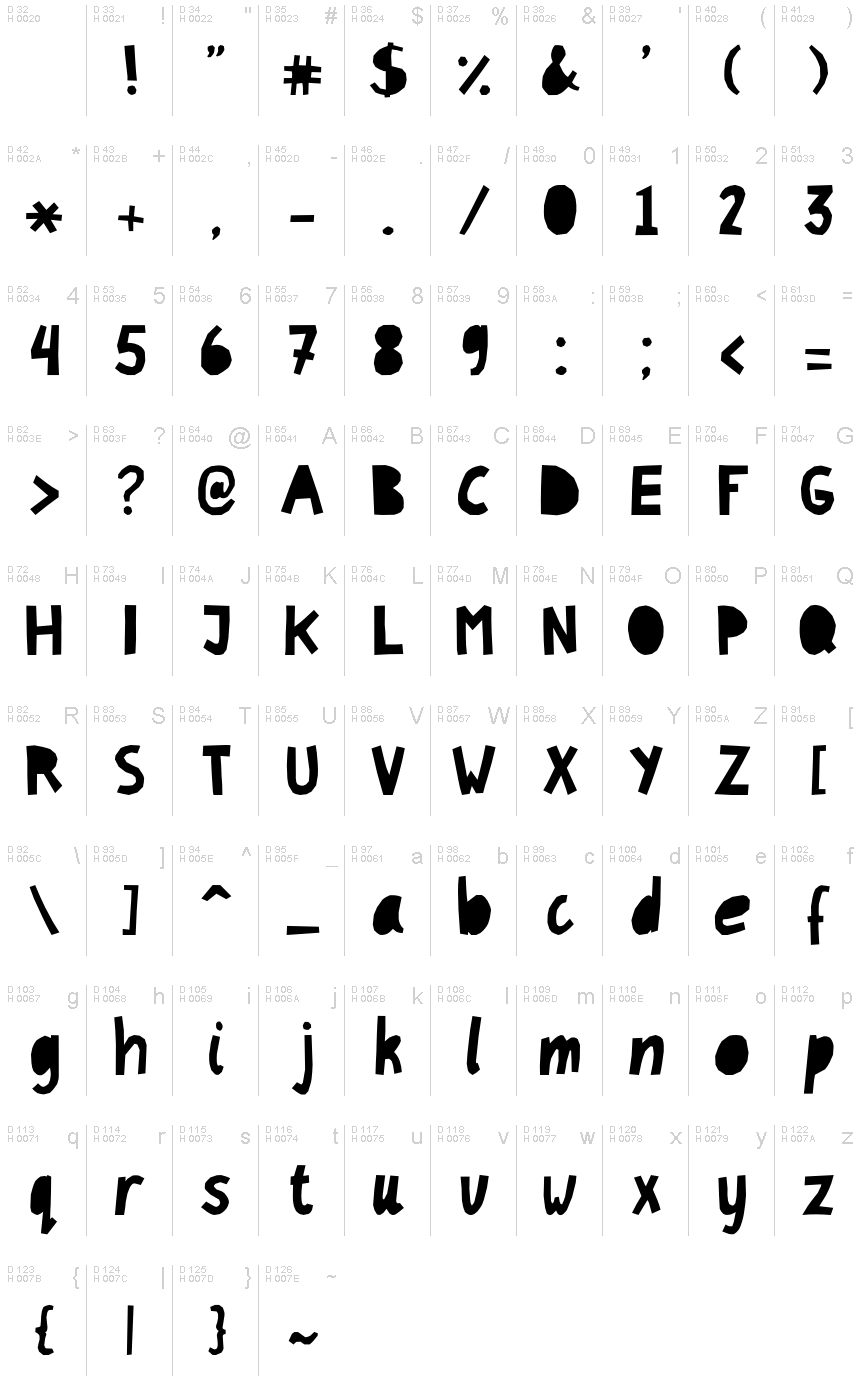
PaperCutRegular
PaperCut is a distinctive display font that exudes a sense of handcrafted charm. Designed by P.C. Drent-Luttikhuizen, this font boasts a raw, paper-like texture that lends an organic, artisanal feel to any design.
Its bold, irregular strokes and sharp, angular terminals create a striking visual impact, making it an excellent choice for headlines, titles, and eye-catching accents. The font's unique character and tactile quality make it well-suited for a variety of applications, from editorial layouts and branding materials to packaging and event invitations.
With its versatile aesthetic, PaperCut offers designers a versatile tool to infuse their projects with a touch of rustic elegance and handmade authenticity.